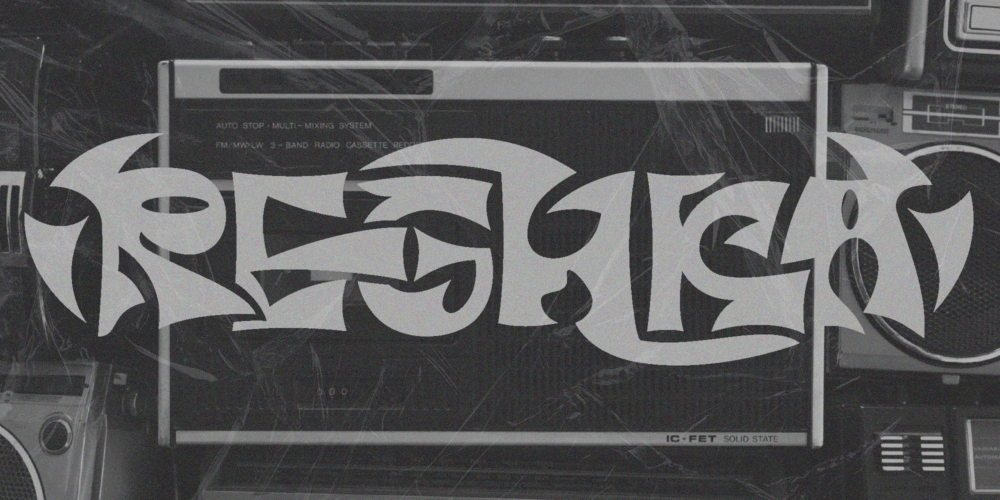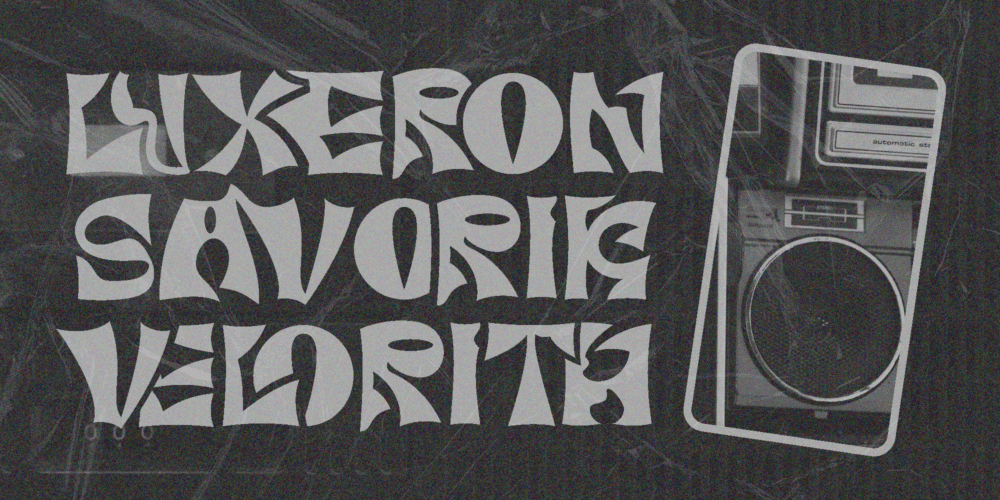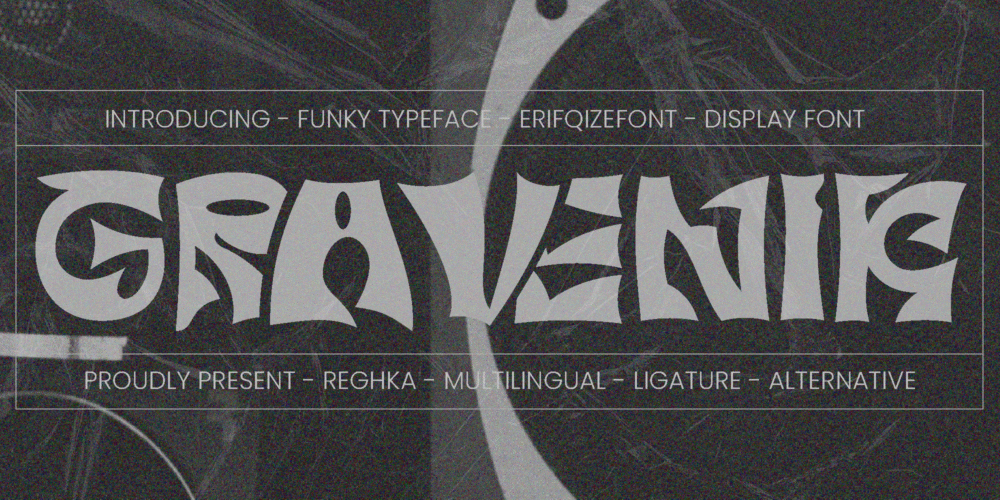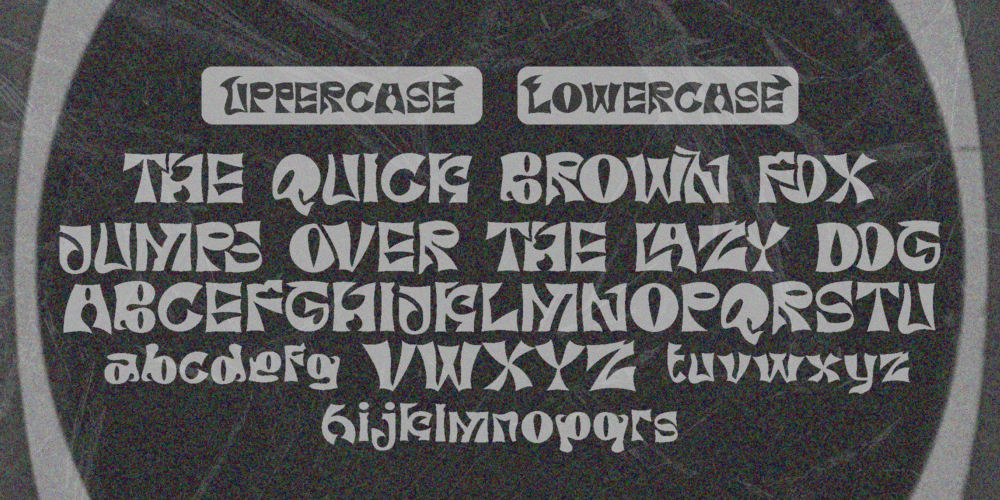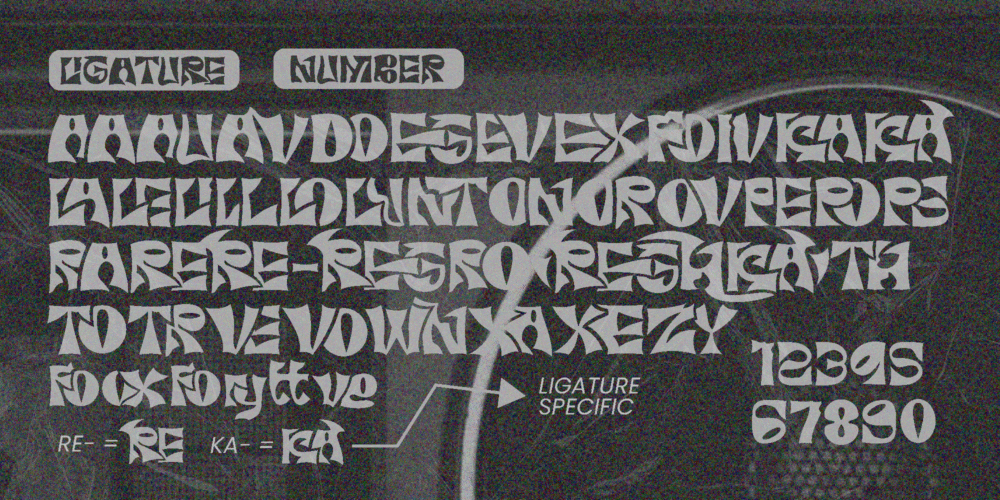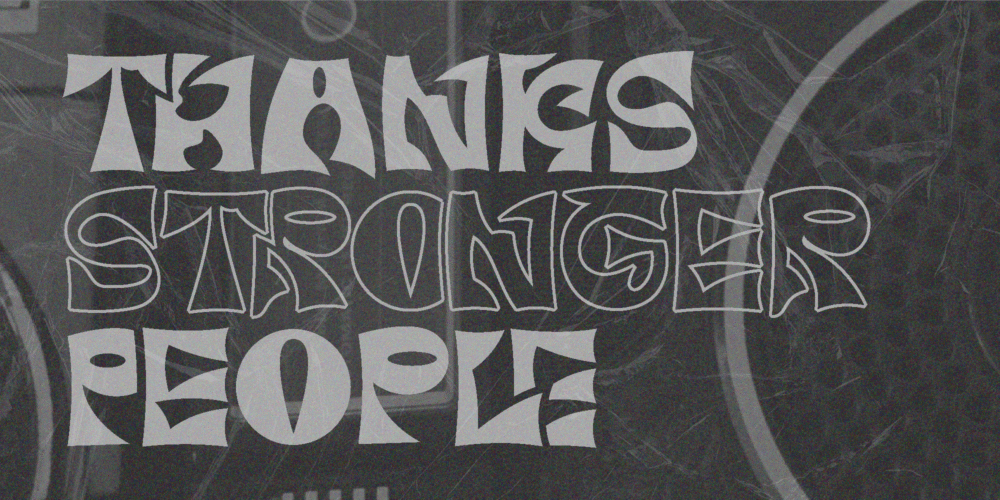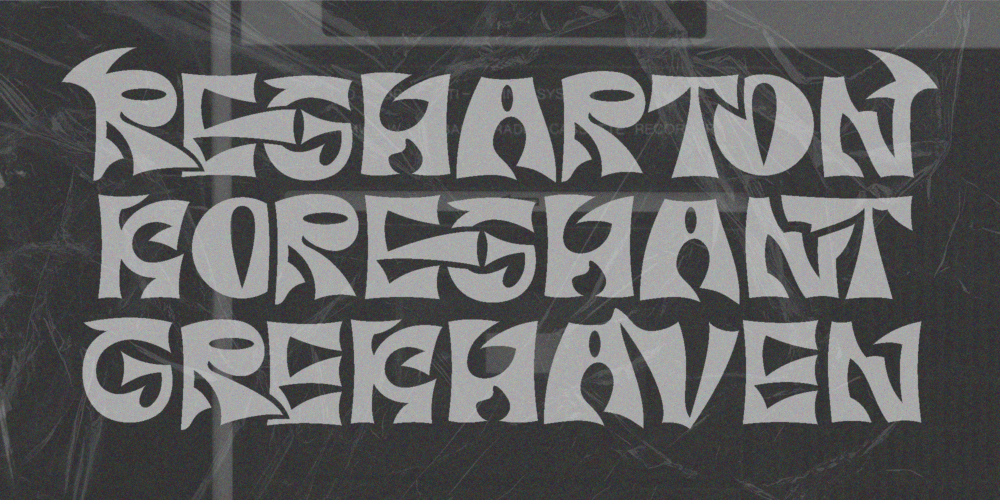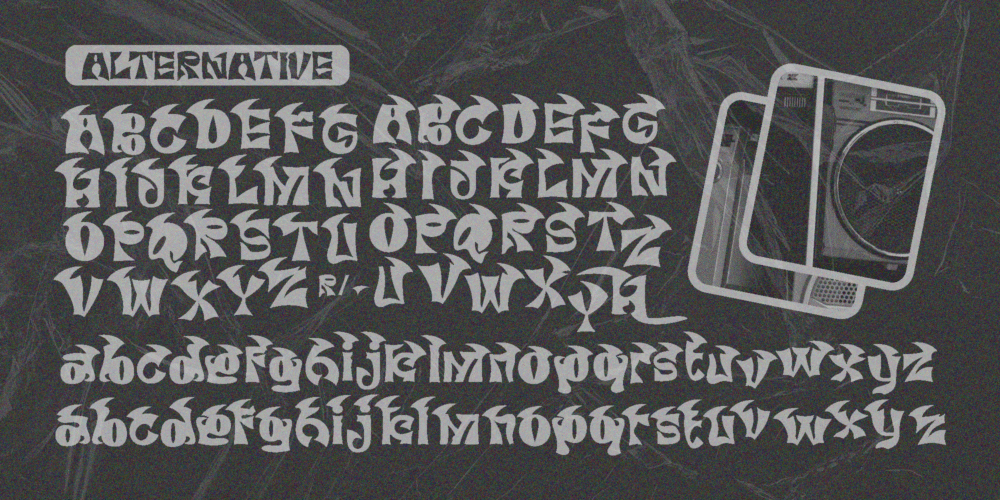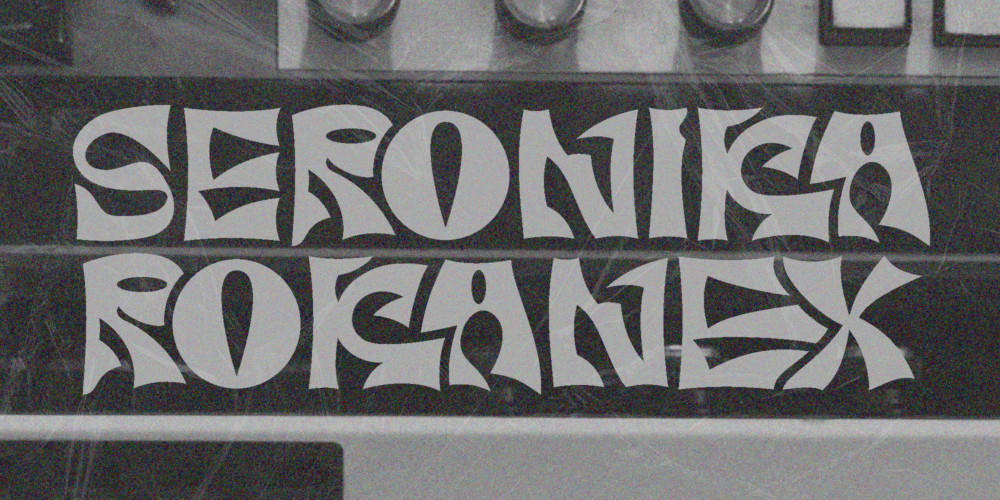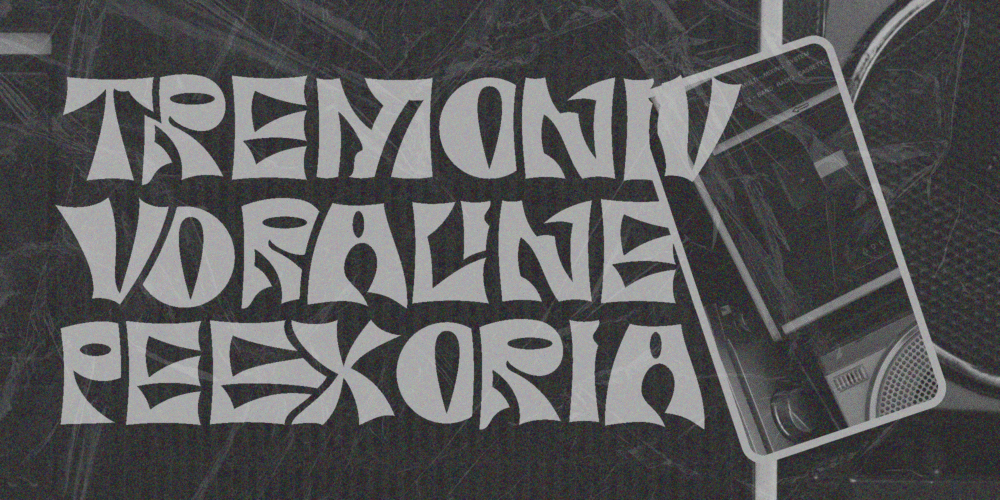
REGHKA – Bold & Funky Display Font
REGHKA is a bold, funky-themed sans-serif display font that radiates expressive energy and artistic freedom. With its abstract shapes and unique letterforms, it brings a dynamic and creative edge to any design.
Packed with 106 alternates and 45 ligatures, REGHKA offers exceptional versatility for custom typography, making it ideal for branding, posters, headlines, and both modern or retro-inspired visuals. It also includes multilingual support, ensuring your designs resonate with audiences worldwide.